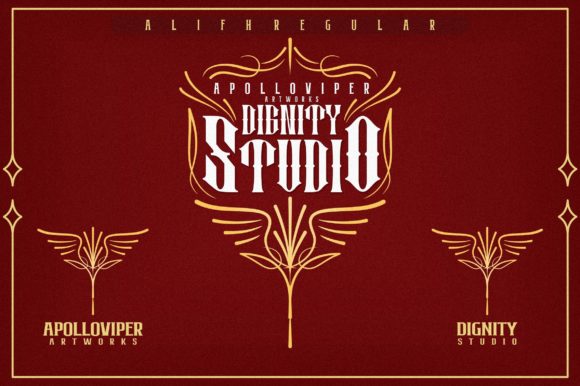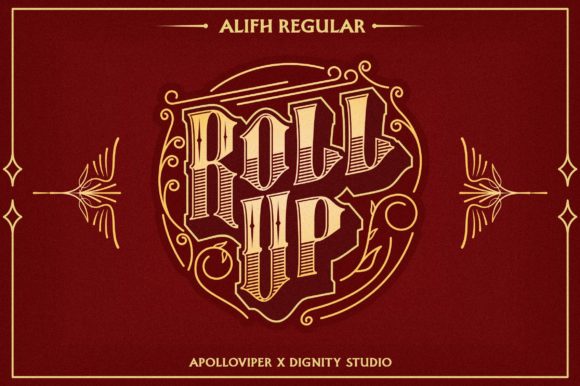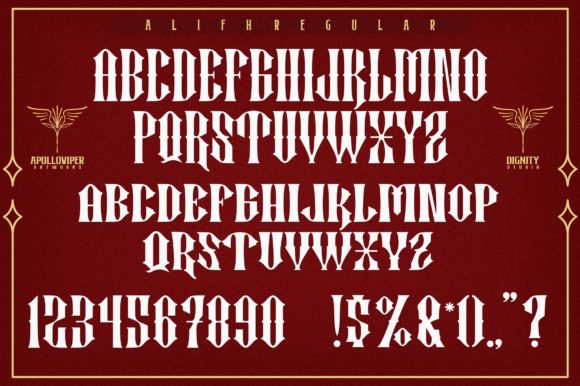
Introducing Alifapolloviper Font: Elevate Your Crafting Projects with a Touch of Elegance
Are you a designer or crafter looking for a unique and captivating font to add a personal touch to your projects? Look no further than Alifapolloviper Font, a stunning blackletter font that is sure to make your creations stand out. In this article, we’ll delve into the world of Alifapolloviper, exploring its features, benefits, and uses, as well as provide tips on how to make the most of this beautiful font.
What is Alifapolloviper Font?
Alifapolloviper Font is a beautiful blackletter font, characterized by its dramatic and ornate lettering style. This font is perfect for crafters and designers who want to add a touch of elegance and sophistication to their projects. With its bold and eye-catching design, Alifapolloviper is ideal for a wide range of applications, from invitations and greeting cards to posters and signage.
Key Features of Alifapolloviper Font
- Unique Blackletter Style: Alifapolloviper boasts a distinctive blackletter style, complete with intricate flourishes and ornate details.
- Highly Readable: Despite its ornate design, Alifapolloviper is highly readable, making it perfect for use in a variety of contexts.
- Versatile: This font can be used for both personal and commercial projects, and can be adapted to suit a range of design styles.
- Easily Customizable: Alifapolloviper can be easily customized to suit your specific design needs, allowing you to create a unique look that reflects your brand or personal style.
Benefits of Using Alifapolloviper Font
So why choose Alifapolloviper Font for your crafting projects? Here are just a few benefits of using this stunning font:
- Adds a Personal Touch: With Alifapolloviper, you can add a personal touch to your projects, making them truly one-of-a-kind.
- Enhances Visual Appeal: The bold and eye-catching design of Alifapolloviper is sure to grab attention and enhance the visual appeal of your projects.
- Perfect for Special Occasions: Whether you’re creating invitations for a wedding, birthday, or other special occasion, Alifapolloviper is the perfect choice.
Using Alifapolloviper Font in Your Crafting Projects
So how can you use Alifapolloviper Font in your crafting projects? Here are a few ideas to get you started:
- Invitations and Greeting Cards: Use Alifapolloviper to create stunning invitations and greeting cards that are sure to impress.
- Posters and Signage: This font is perfect for creating eye-catching posters and signage that will grab attention.
- Scrapbooking and Journaling: Add a touch of elegance to your scrapbooking and journaling projects with Alifapolloviper.
Tips for Getting the Most Out of Alifapolloviper Font
To get the most out of Alifapolloviper Font, here are a few tips to keep in mind:
- Experiment with Different Sizes and Colors: Don’t be afraid to experiment with different sizes and colors to find the perfect combination for your project.
- Pair with Other Fonts: Alifapolloviper can be paired with other fonts to create a unique and visually appealing design.
- Use in Combination with Images: This font can be used in combination with images to create a stunning visual effect.
In conclusion, Alifapolloviper Font is a beautiful and versatile blackletter font that is perfect for crafters and designers looking to add a touch of elegance to their projects. With its unique design, high readability, and customizability, Alifapolloviper is sure to become a go-to font for anyone looking to create stunning and eye-catching designs. So why wait? Download Alifapolloviper Font today and start elevating your crafting projects to the next level!